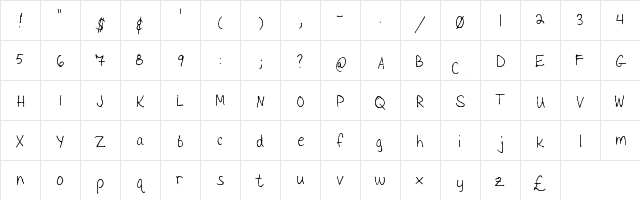
Wendiscript Regular Regular
Design Context for Wendiscript Regular Typeface
Wendiscript Regular flows with the natural rhythm of handwritten lettering, making it ideal for designs that call for warmth and personal expression.
Font Pairing: Combine Wendiscript Regular with a simple geometric sans for maximum contrast — the tension between flowing curves and clean structure is a classic typographic pairing.
Pro Tip: Pair Wendiscript Regular with a clean sans-serif for supporting text. The contrast between fluid script and geometric structure creates an elegant typographic hierarchy.